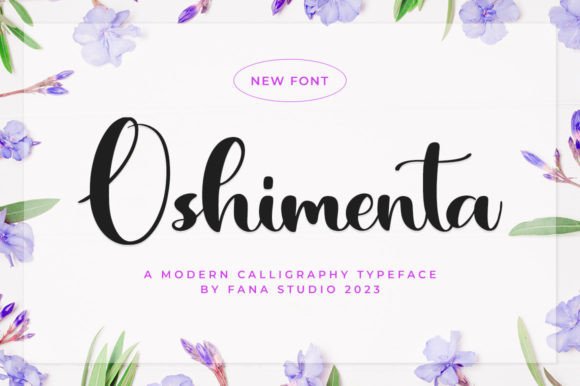
Embrace the artistry of Oshimenta Script, a captivating script font that weaves elegance and grace into every letterform. Immerse yourself in a world of creativity, where your designs dance with sophistication and timeless charm.
Oshimenta is not just a font; it's an expression of your individuality, a reflection of your unique style. Picture your website headers adorned with this exquisite script, each stroke captivating your audience, inviting them to embark on a visual journey like no other.
With Oshimenta, you hold the key to unlocking a treasure trove of design possibilities. From logos that exude professionalism to invitations that radiate elegance, from stationery that whispers intimacy to wedding designs that speak of eternal love - Oshimenta amplifies your message, making it resonate with your audience on a deeper level.
Unleash your creativity and let Oshimenta guide you through a symphony of visual masterpieces. Create social media posts that demand attention, advertisements that leave a lasting impression, and product packaging that turns your creations into objects of desire.
Oshimenta is the ultimate tool for those who seek distinction, who crave a font that elevates their work to new heights of artistry. Its versatility knows no bounds, adapting seamlessly to a myriad of projects, each one imbued with a touch of magic.
Let Oshimenta ignite your imagination and let your designs bloom with unparalleled beauty. Experience the transformative power of this elegant script font and witness your creative vision come to life in ways you never thought possible.